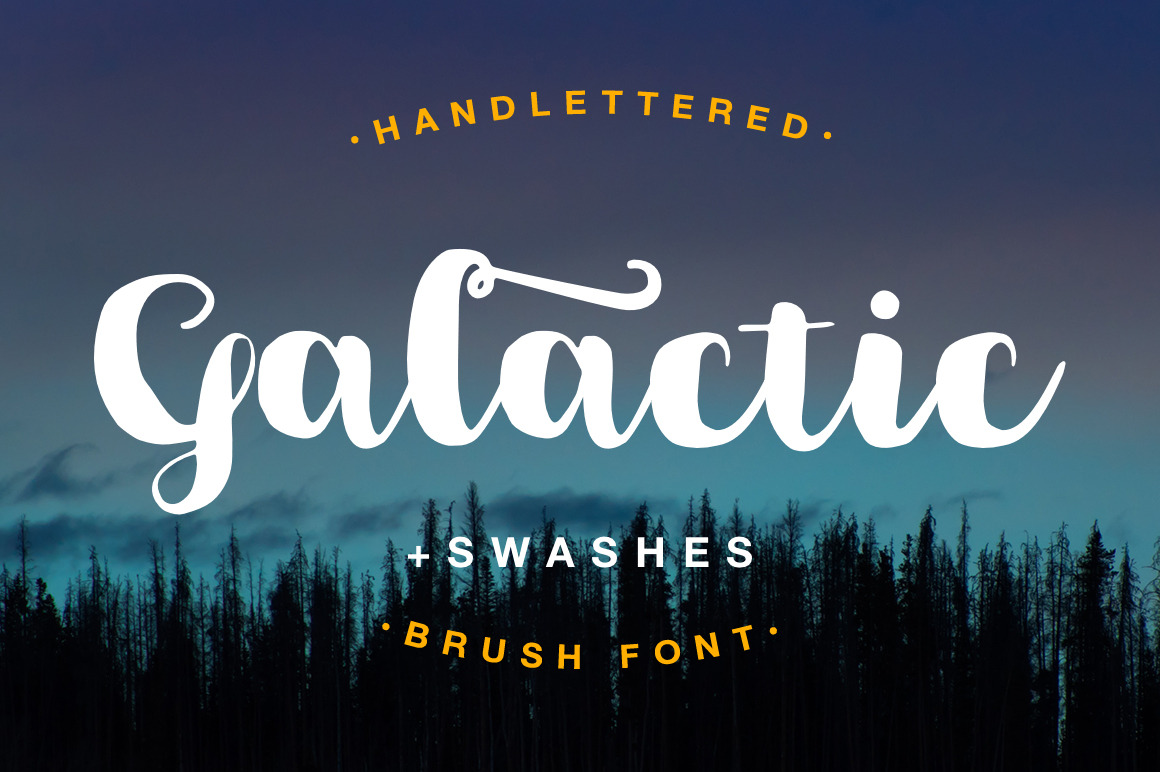
Galactic Brush Font
It's a sweet hand lettered font. Also with this type, you will see a lot of interesting extras. This brush font is ideal for branding and decorate your any project.
You can create perfect and unique design of your wedding postcard, logo, blog, stationery, marketing, magazines and more